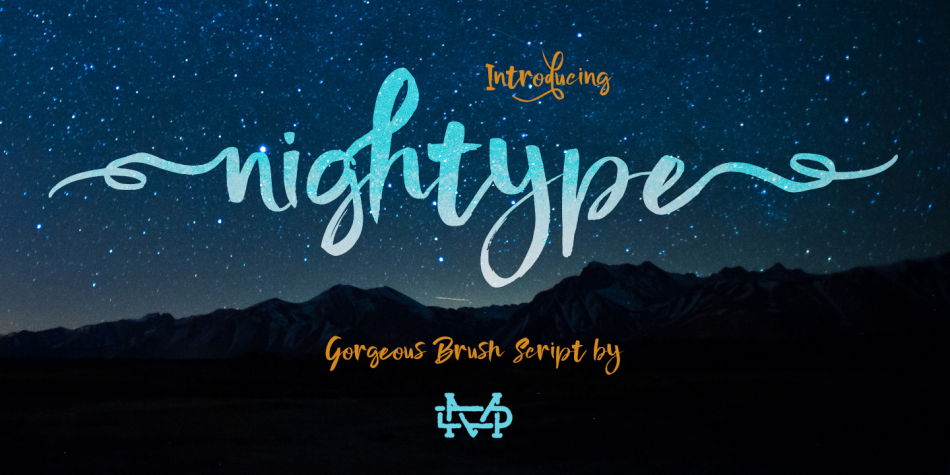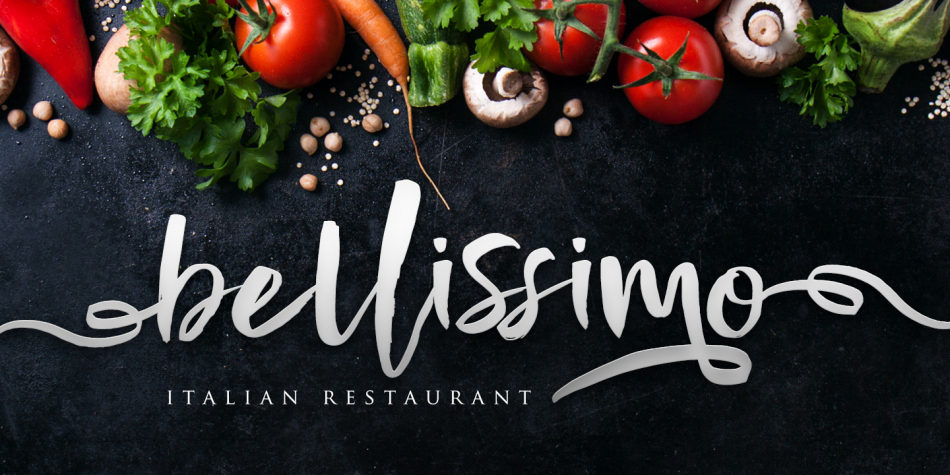
| Designed by Suandana Ipandemade, Nightype Script is a brush script font published by madeDeduk. |
Really excited to introduce Nightype is a brush script! Nightype perfect for all your designs project.
Features - UPPERCASE - lowercase - Number & Symbol - International Glyps - Alternative lowercase (alt01-alt02-alt03-alt04alt05-alt06) - Ligature If you need anything else just shoot me on email at: dedukvic@gmail.